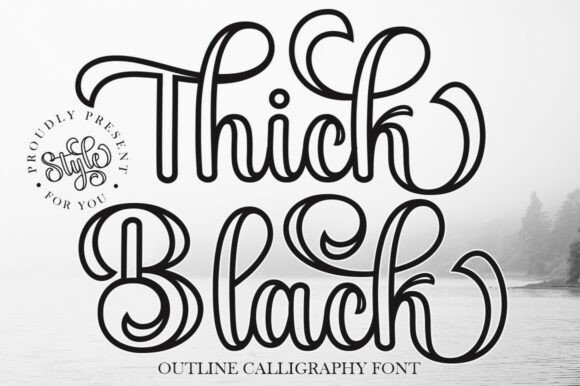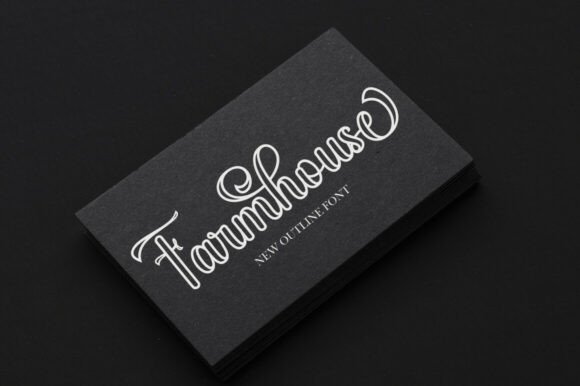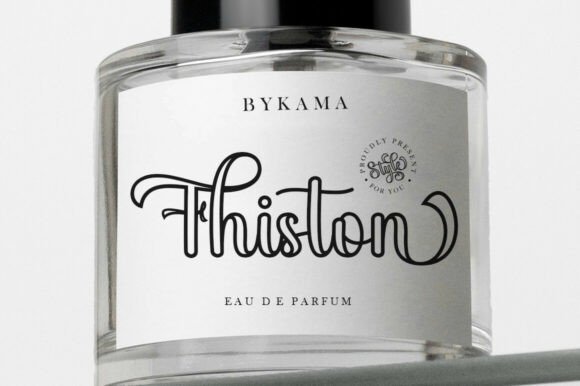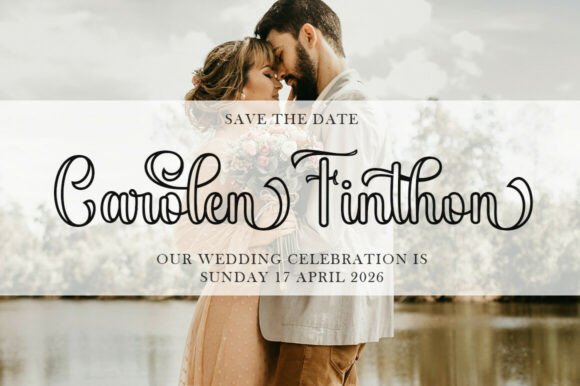
Thick Black Outline Otf Font
Thick Black Outline is a beautifully crafted outline font that blends softness with elegance. Its graceful, hollow strokes and feminine touch add a refined look to any project. Perfect for branding, titles, wedding stationery, invitations, signage, logos, labels, and more—this font brings a stylish, elevated feel to your designs.